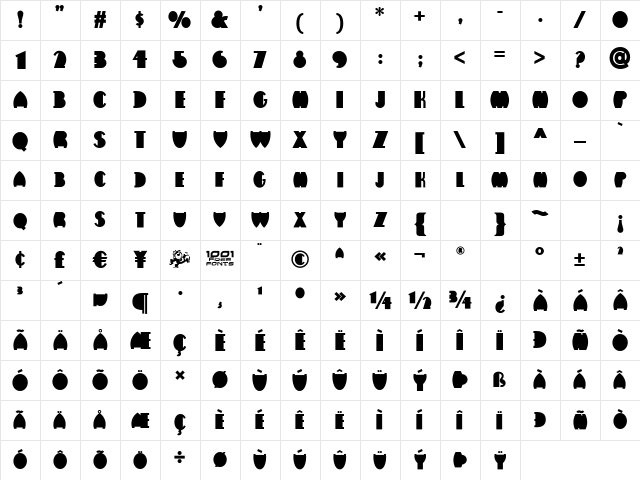
Flatiron NF Regular
Foundry: Nick's Fonts
Designer: Nick Curtis
Design Context for Flatiron NF
Flatiron NF is a composed and adaptable typeface that performs quietly and consistently across a wide range of design contexts.